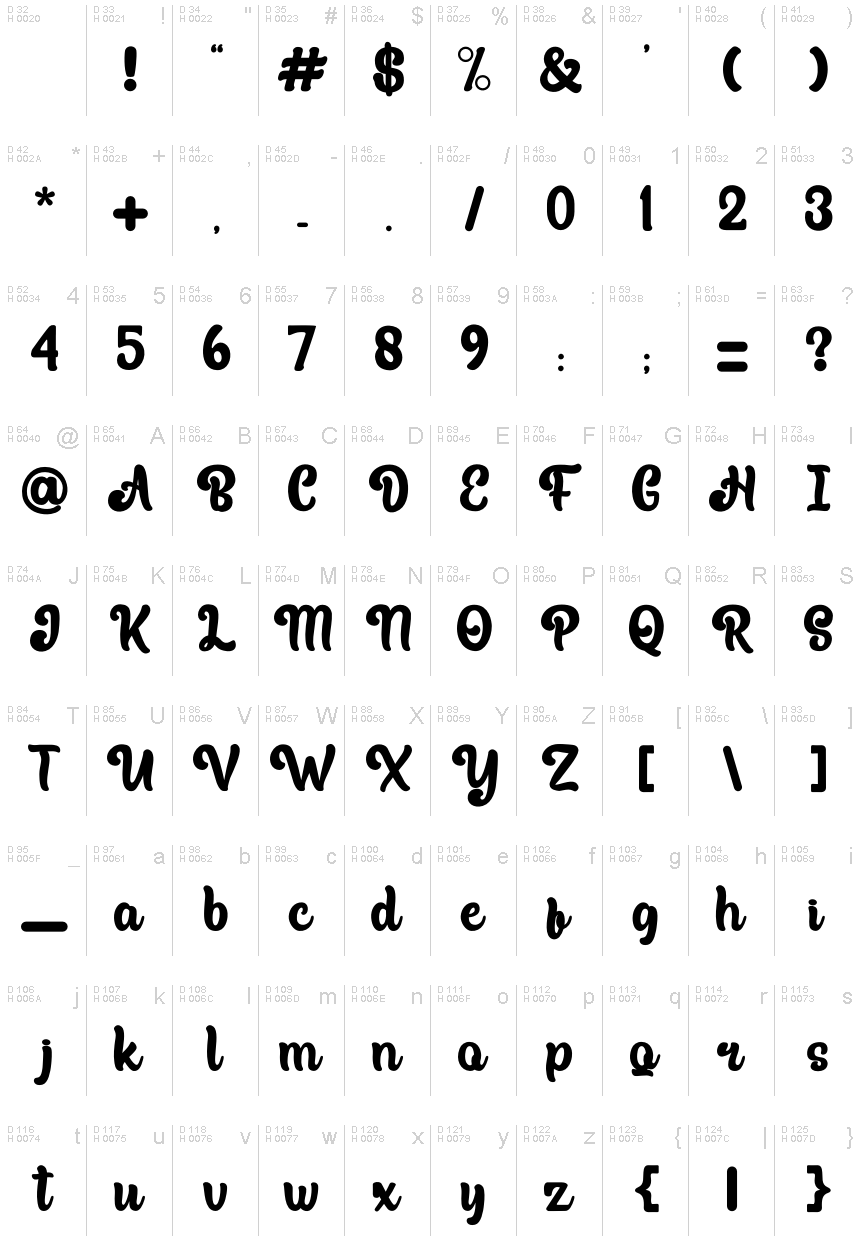
Anhay
The Anhay font, crafted by Eknoji Studio, is a striking brush-style font that exudes boldness and artistic flair. Its bold strokes capture attention with a dynamic and expressive aesthetic, making it ideal for projects that require a personal touch. The free font's sweeping curves and textured appearance evoke creativity and movement, creating an engaging visual impact.
Perfect for design contexts such as posters, branding, and social media graphics, Anhay’s distinct character adds vibrancy to any project. With its downloadable availability, this versatile font offers designers an accessible tool to elevate their creative work.
Embrace the unique charm of Anhay and transform your designs with this captivating brush-style font.